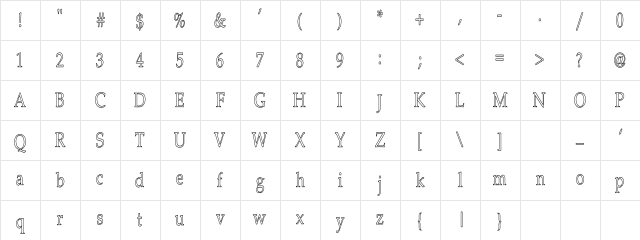
Palatino-ThinHC Regular Free Font
Palatino-ThinHC Regular
Complete Palatino-ThinHC Regular glyph index. Displaying only characters natively supported by Palatino-ThinHC Regular font.
Design Context for Palatino-ThinHC
Palatino-ThinHC is a composed and adaptable typeface that performs quietly and consistently across a wide range of design contexts. Its slender proportions lend an understated elegance to any composition.